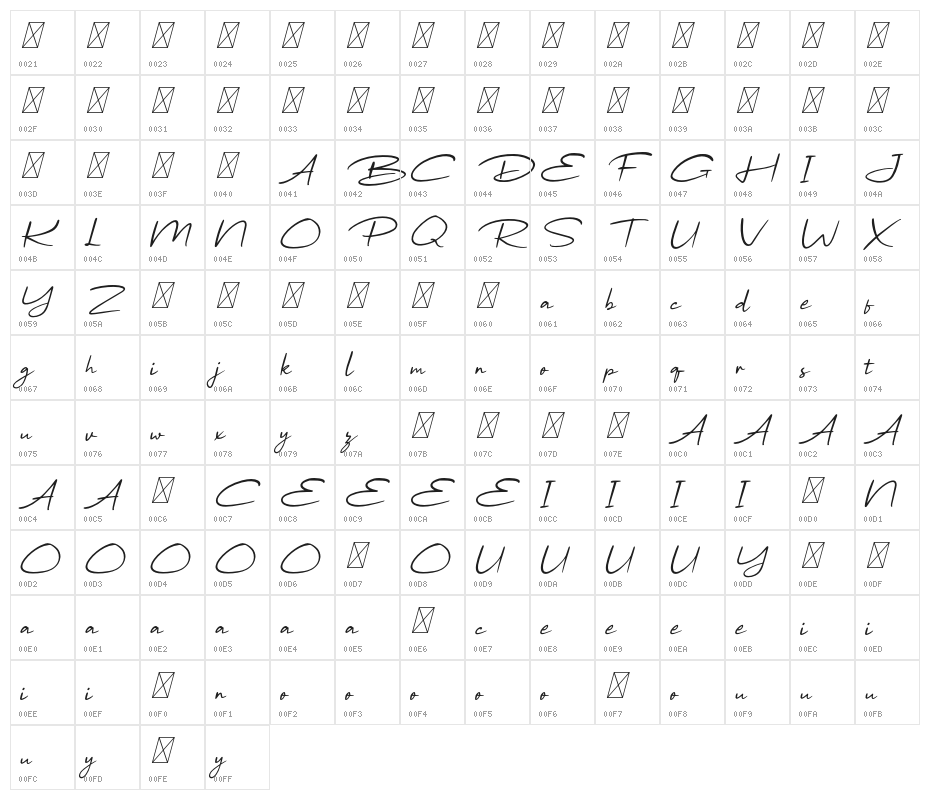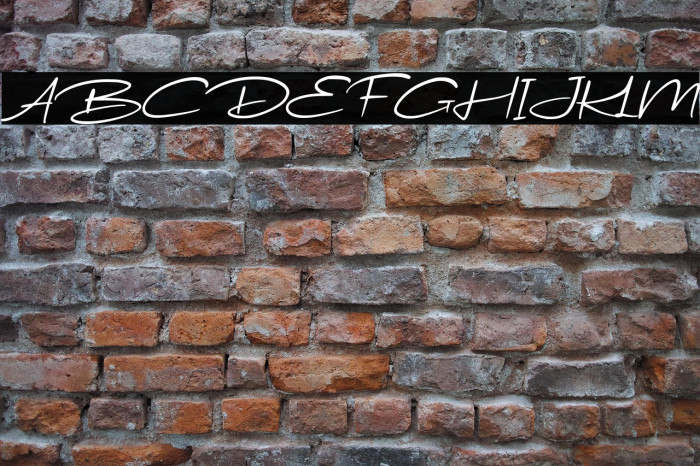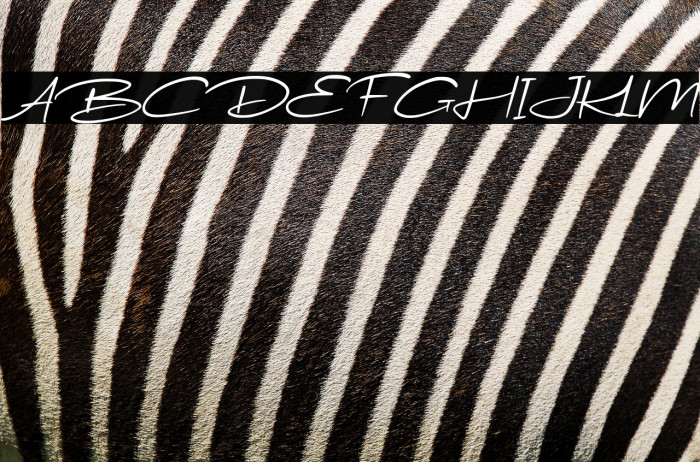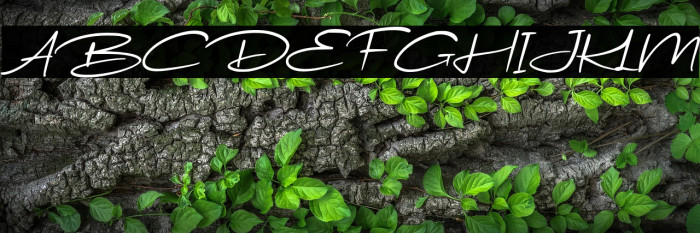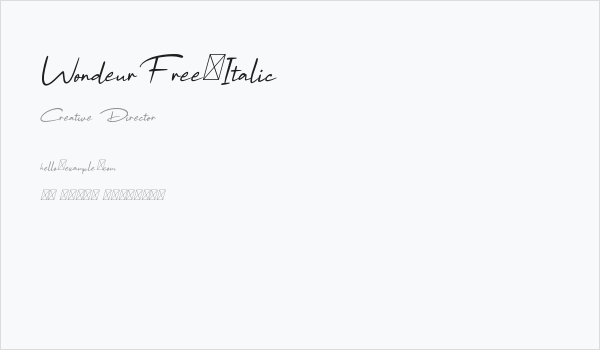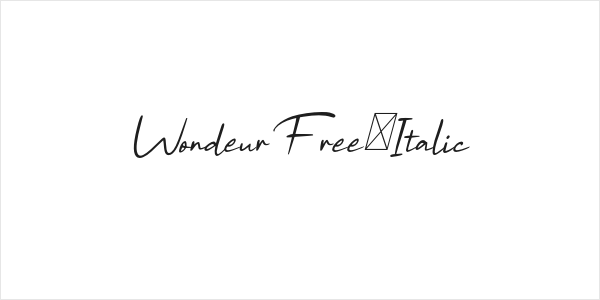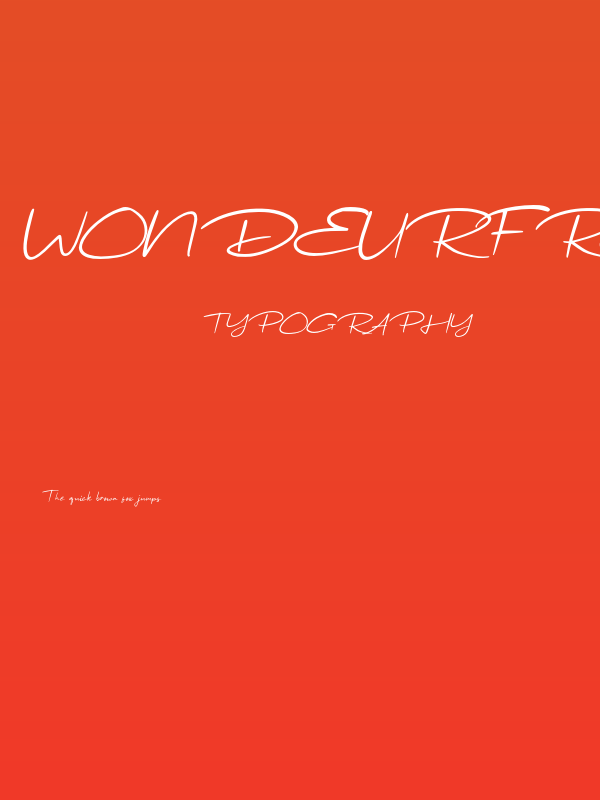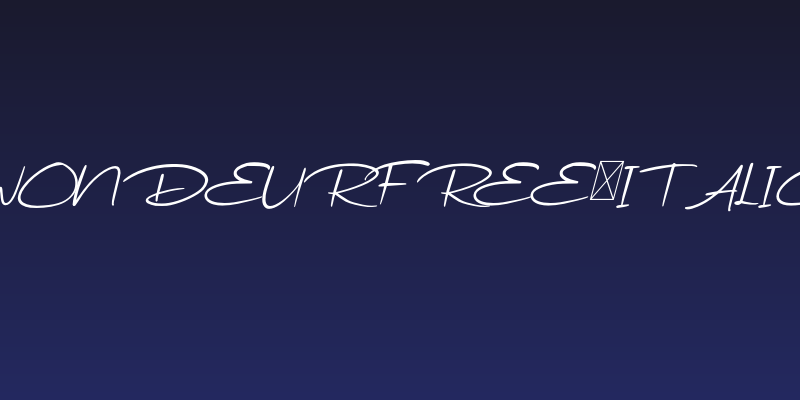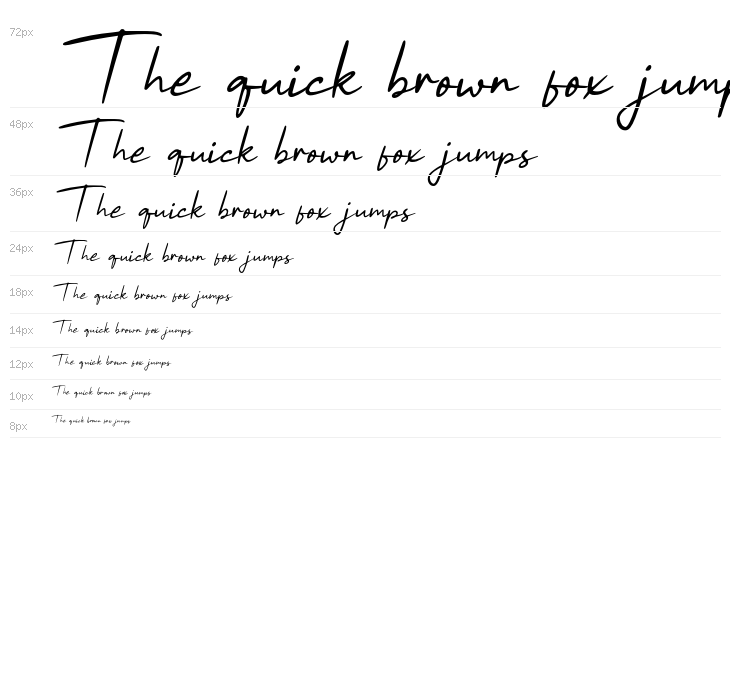
WondeurFree-Italic Font
WondeurFree-Italic Description
This font exhibits a dynamic and fluid script style, characterized by its elegant and flowing cursive letters. The uppercase letters are slightly elongated, adding a sense of sophistication and grace. The lowercase letters maintain a consistent slant, enhancing the overall cursive effect. The strokes are smooth and connected, providing a seamless appearance. The font's italic nature adds to its expressive and artistic quality, making it suitable for creative and decorative applications. The absence of sharp edges and the presence of rounded forms contribute to its friendly and approachable look.
| Proposed Projects | Ideal for wedding invitations, greeting cards, personal branding, and artistic projects. |